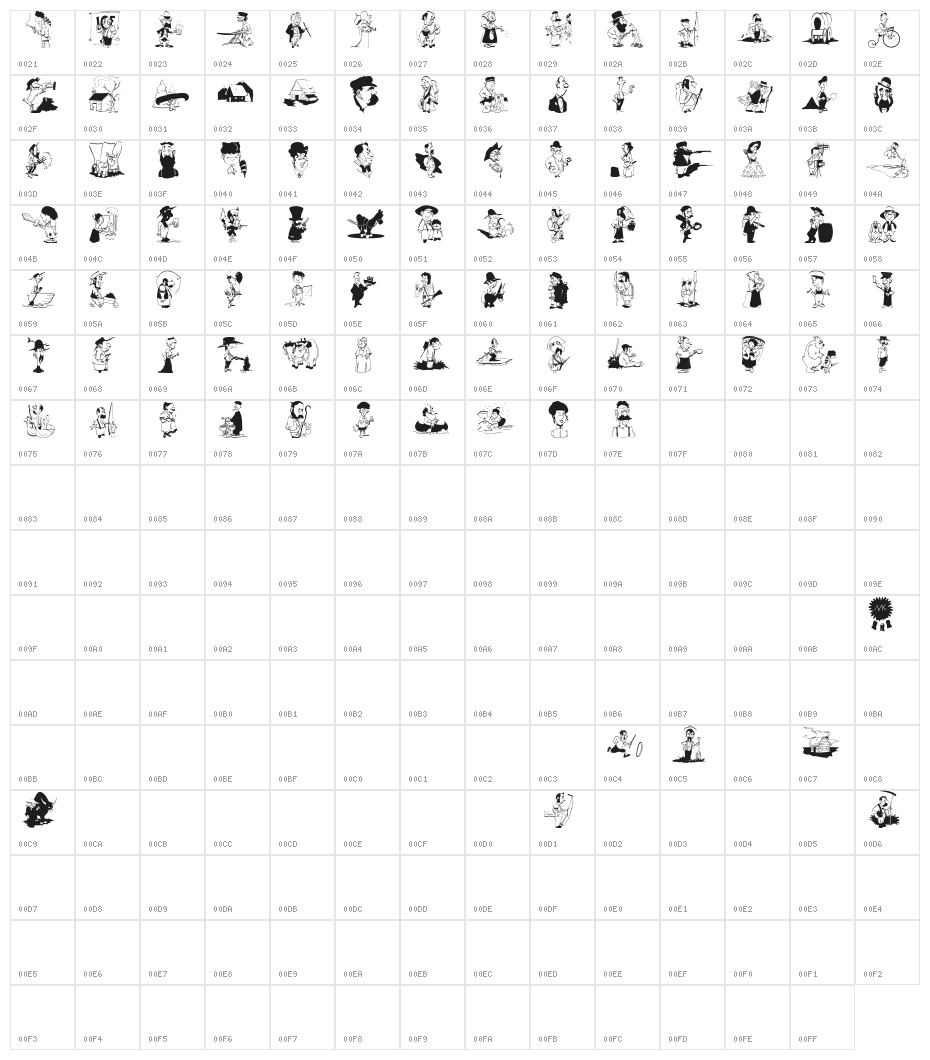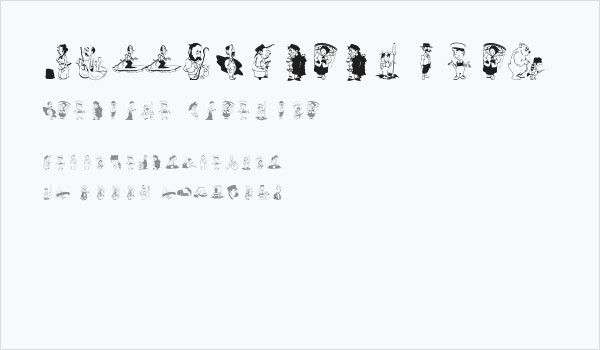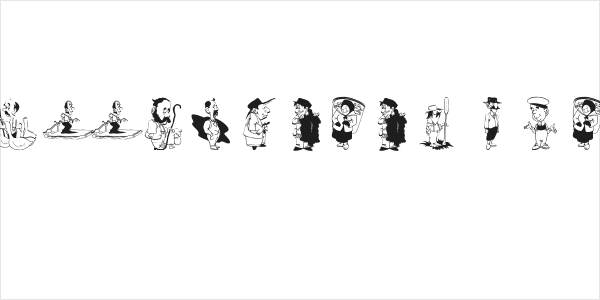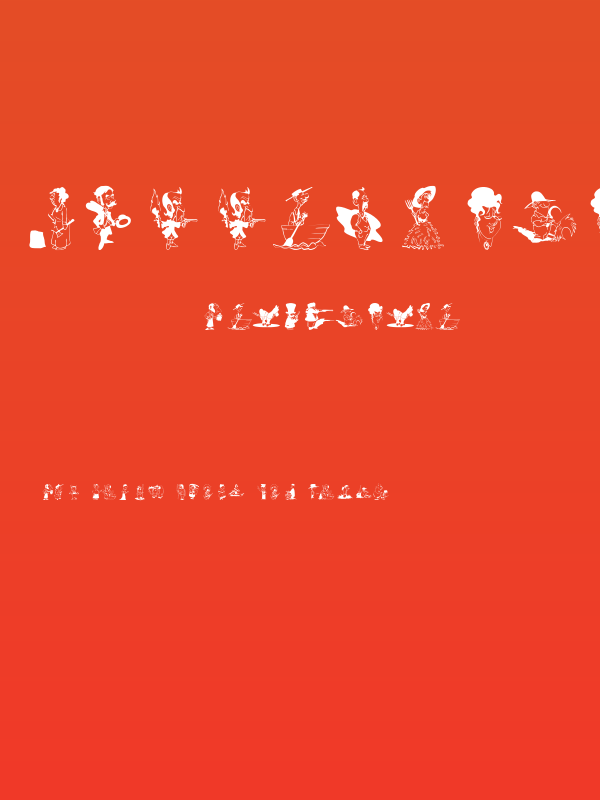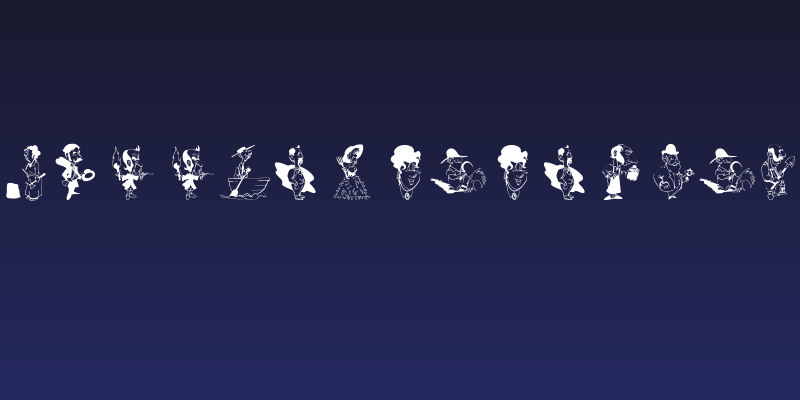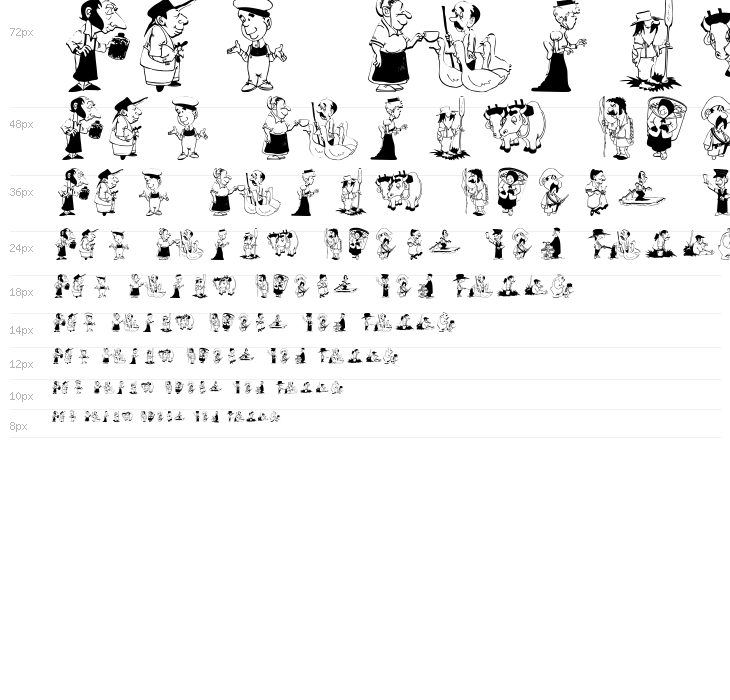
FunnyCharacters Font
| Overall Style | Decorative, Whimsical, Playful |
| Use Case | Illustrations, Decorative elements, Themed graphics |
| Proposed Projects | Children's books, comic strips, greeting cards, educational materials, playful branding, posters. |